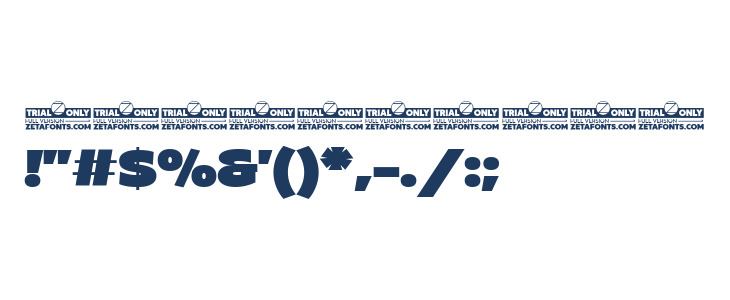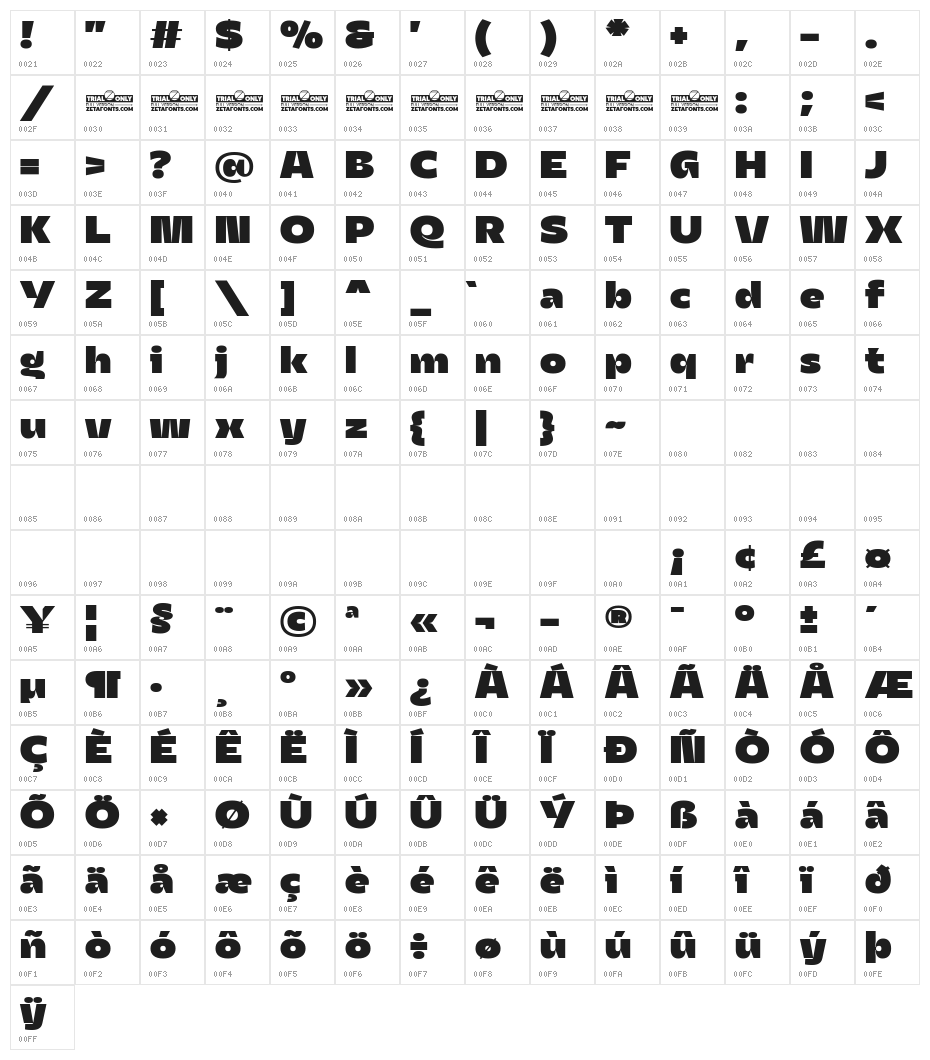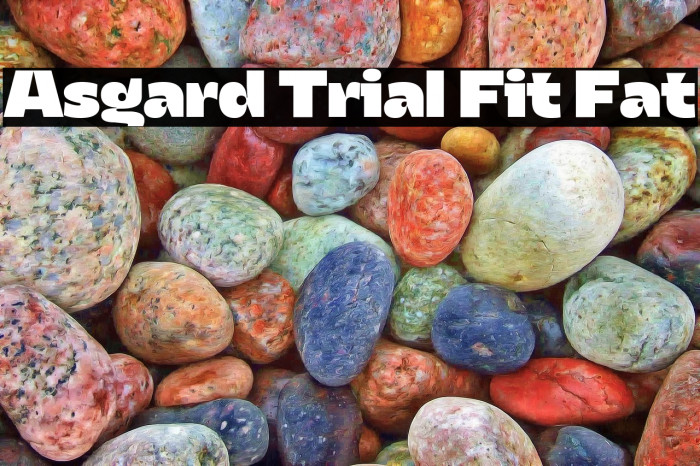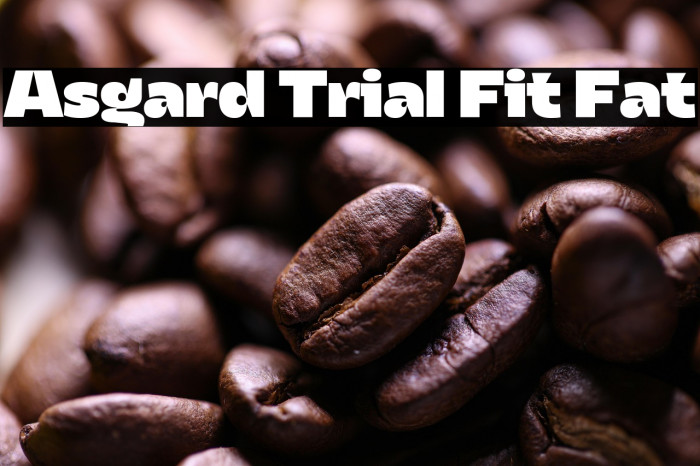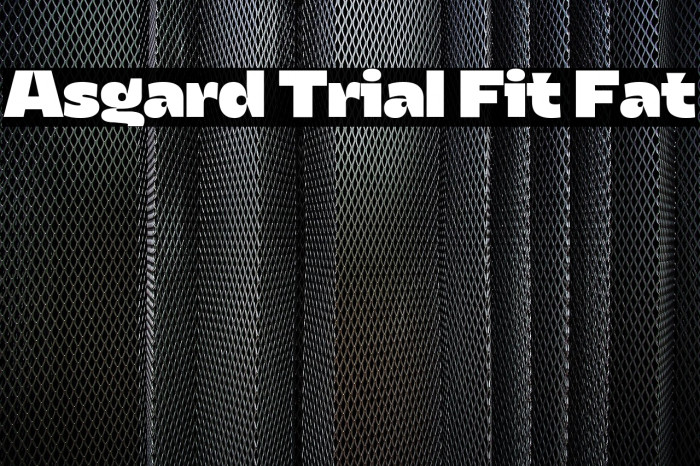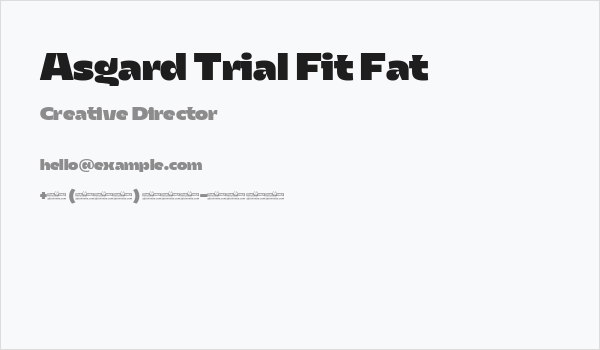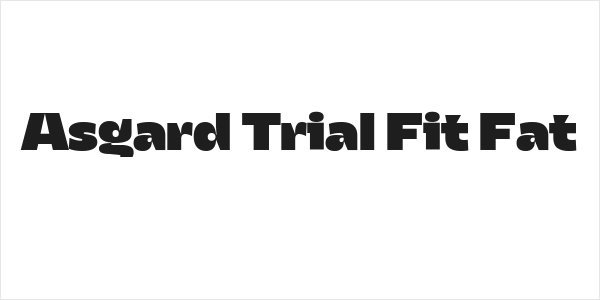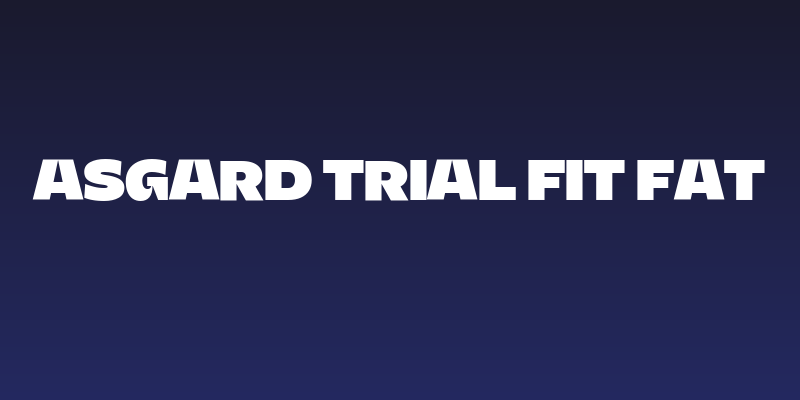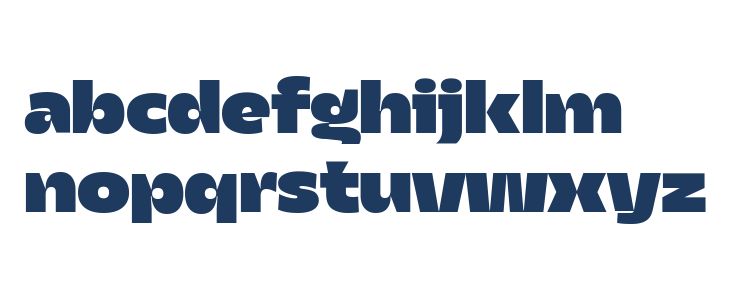
Asgard Trial Fit Fat Font
Asgard Trial Fit Fat Description
This font features a bold and robust design with thick, uniform strokes that create a strong visual impact. The characters are wide and have a slightly condensed appearance, giving them a powerful presence. The uppercase and lowercase letters maintain a consistent style, with rounded edges that soften the overall look. The numerals and special characters are designed to match the boldness of the alphabet, ensuring a cohesive appearance across all text. This font is ideal for making statements and capturing attention with its striking and modern aesthetic.
Proposed ProjectsIdeal for headlines, posters, branding, and any project requiring a strong visual impact.